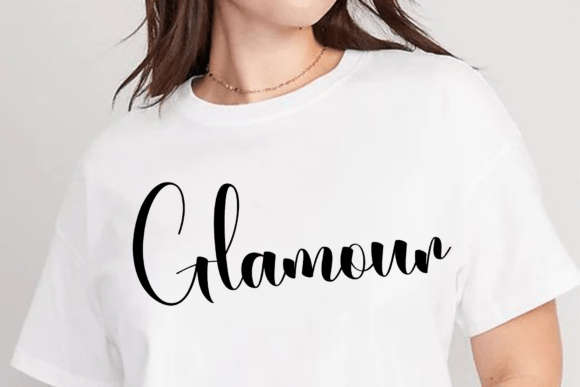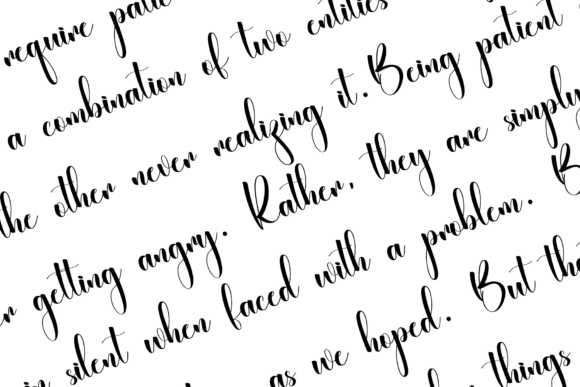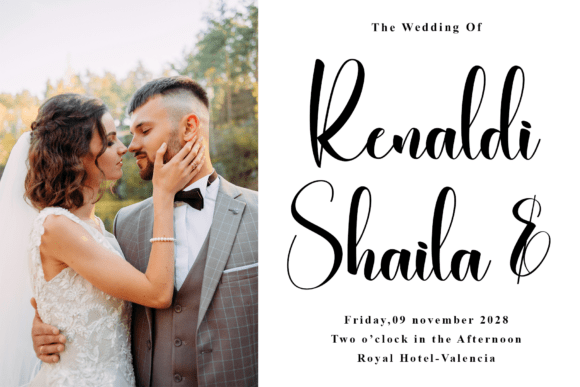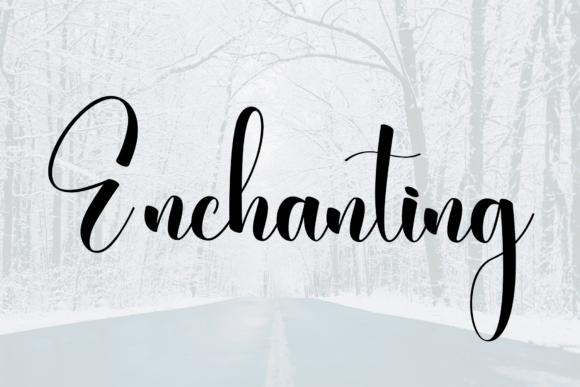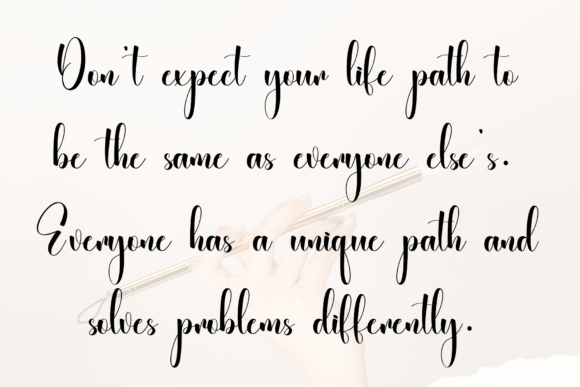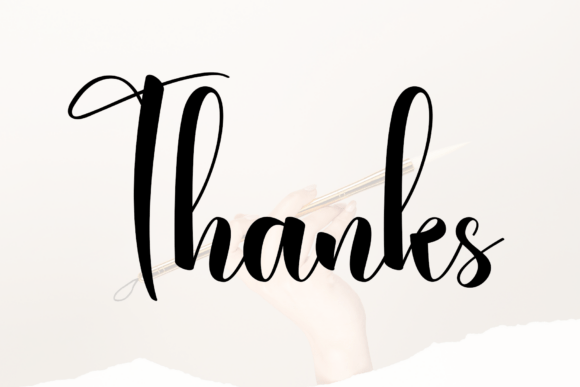
The Elegance of Calligraphy Font: Elevating Designs with a Personal Touch
Calligraphy is a beautiful and expressive form of handwriting that has been a cornerstone of art and design for centuries. With the advent of digital technology, calligraphy has evolved into a modern handwritten script font that combines elegance with a personal touch. In this article, we’ll explore the world of Calligraphy Font, its unique features, and how it can elevate your designs to new heights.
What is Calligraphy Font?
Calligraphy Font is a modern handwritten script font that mimics the natural flow of real handwriting. Its fluid strokes and gentle curves create a sense of movement and fluidity, making it perfect for a wide range of design projects. Whether you’re creating wedding invitations, logos, stationery, Instagram quotes, or branding projects, Calligraphy Font is the perfect choice.
Unique Features of Calligraphy Font
So, what sets Calligraphy Font apart from other script fonts? Here are a few of its unique features:
- Fluid Strokes and Gentle Curves: Calligraphy Font’s fluid strokes and gentle curves create a sense of movement and fluidity, making it perfect for designs that require a personal touch.
- Sophisticated yet Accessible: Calligraphy Font is both sophisticated and accessible, with just the right amount of flair to elevate your designs while maintaining readability.
- PUA-Encoded: Calligraphy script font is PUA-encoded, ensuring effortless access to all glyphs, swashes, and alternate characters to help you customize your creations with ease.
Calligraphy Font is versatile and can be used for a wide range of design projects, including:
- Wedding Invitations: Add a touch of elegance and sophistication to your wedding invitations with Calligraphy Font.
- Logos and Branding: Create a unique and memorable brand identity with Calligraphy Font’s fluid strokes and gentle curves.
- Stationery: Elevate your stationery designs with Calligraphy Font’s elegant and sophisticated style.
- Instagram Quotes: Add a touch of elegance and sophistication to your Instagram quotes with Calligraphy Font.
Why Choose Calligraphy Font?
So, why choose Calligraphy Font for your design projects? Here are a few reasons:
- Elegance and Sophistication: Calligraphy Font adds a touch of elegance and sophistication to any design project.
- Personal Touch: Calligraphy Font’s fluid strokes and gentle curves create a sense of movement and fluidity, making it perfect for designs that require a personal touch.
- Readability: Calligraphy Font is designed to be readable, making it perfect for designs that require a clear and concise message.
Tips for Using Calligraphy Font
Here are a few tips for using Calligraphy Font in your design projects:
- Use it Sparingly: Use Calligraphy Font sparingly to add a touch of elegance and sophistication to your designs.
- Experiment with Different Sizes: Experiment with different sizes and styles to find the perfect fit for your design project.
- Pair it with Other Fonts: Pair Calligraphy Font with other fonts to create a unique and memorable design.
In conclusion, Calligraphy Font is a beautiful and expressive script font that combines elegance with a personal touch. Its fluid strokes and gentle curves make it perfect for a wide range of design projects, from wedding invitations to logos and branding. With its PUA-encoded feature, you can easily access all glyphs, swashes, and alternate characters to customize your creations with ease. Whether you’re a designer or a crafter, Calligraphy Font is the perfect choice for adding a touch of elegance and sophistication to your designs.